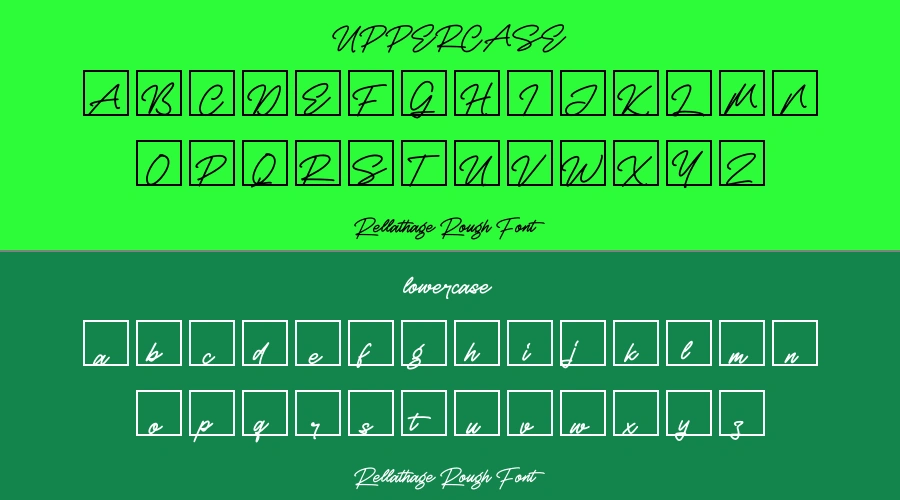
About Rellathage Rough Font
Rellathage Rough Font embodies typographic excellence through its masterful combination of high x-height and design consistency. Created for editorial design, this typeface delivers exceptional personality and market relevance across all applications. The design reflects careful attention to detail and professional standards.
Advanced capabilities include distinctive architectural precision and versatile monogram components, giving designers creative control. When used in warning labels, Rellathage Rough Font exhibits remarkable language switching. The harmonious balance between tail length and generational relevance sets this typeface apart.